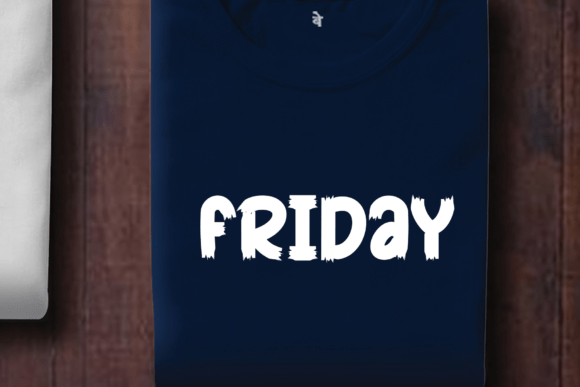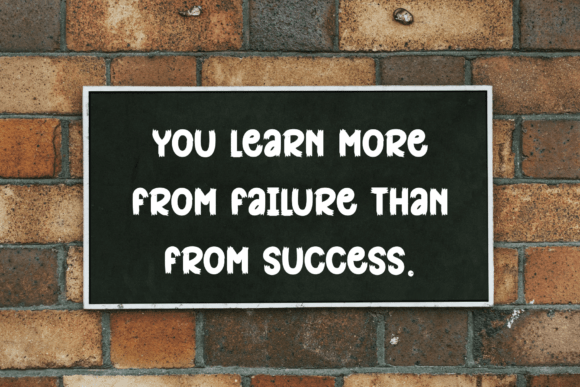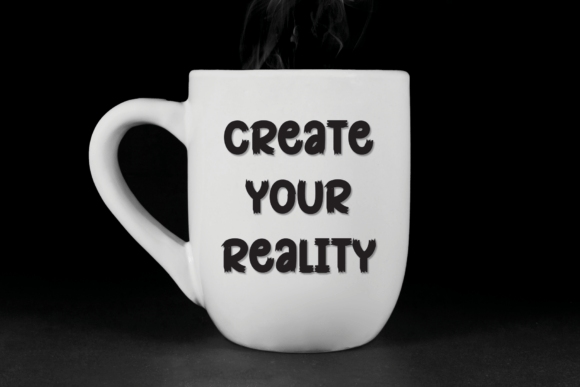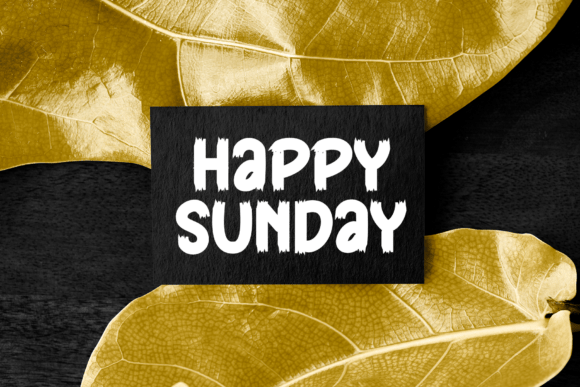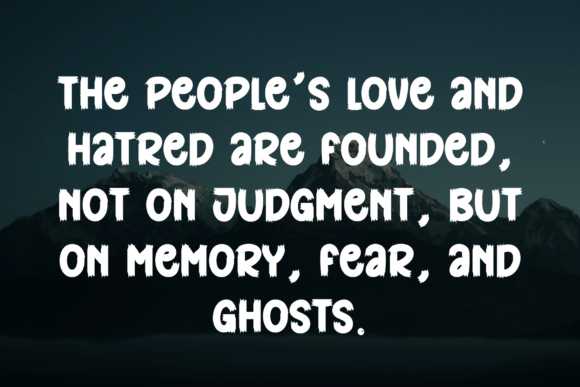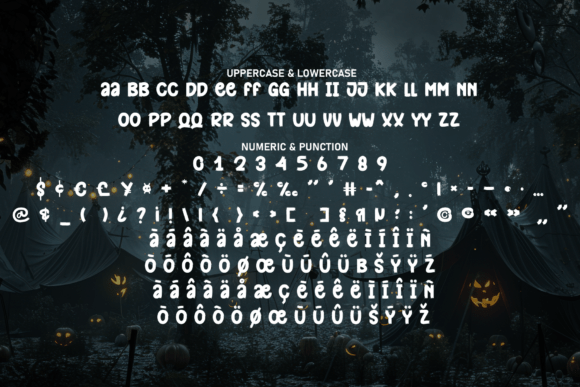
Introducing Creepy Festival Font: The Perfect Blend of Sweet and Friendly
Are you tired of using the same old fonts for your designs? Look no further! We’re excited to introduce Creepy Festival Font, a charming and cozy handwritten display font that’s sure to bring a playful dash of personality to any design. With its unique blend of sweet and friendly features, this font is perfect for designers and crafters looking to add a touch of whimsy to their work.
A Font that’s Full of Character
Creepy Festival Font is a handwritten display font that’s infused with a delightful sense of fun. Its endearing form is perfect for personalizing wedding invitations, cards, and other designs that require a touch of personality. The font’s unique style is sure to make your designs stand out from the crowd, and its playful vibe is guaranteed to bring a smile to the face of anyone who sees it.
Wedding invitations and cards are a great way to use Creepy Festival Font. The font’s sweet and friendly features make it perfect for adding a personal touch to these special occasions. Imagine sending out wedding invitations that are not only beautiful but also reflect the personalities of the happy couple. With Creepy Festival Font, you can create unique and eye-catching designs that will leave a lasting impression on your guests.
Bringing Personality to Your Designs
Any design can be transformed with Creepy Festival Font. Whether you’re working on a branding project, a social media graphic, or a website, this font is sure to add a playful dash of personality. Its unique style is perfect for designers who want to create designs that are not only visually appealing but also reflect their personality. With Creepy Festival Font, you can add a touch of whimsy to your designs and make them stand out from the crowd.
Key Features of Creepy Festival Font
- Handwritten display font: Creepy Festival Font is a handwritten display font that’s perfect for adding a personal touch to your designs.
- Sweet and friendly features: The font’s sweet and friendly features make it perfect for wedding invitations, cards, and other designs that require a touch of personality.
- Unique style: Creepy Festival Font has a unique style that’s sure to make your designs stand out from the crowd.
- Playful vibe: The font’s playful vibe is guaranteed to bring a smile to the face of anyone who sees it.
Tips for Using Creepy Festival Font
Here are a few tips for using Creepy Festival Font:
- Use it for headings: Creepy Festival Font is perfect for headings and titles. Use it to add a touch of personality to your designs.
- Experiment with colors: The font looks great in a variety of colors. Experiment with different colors to find the one that works best for your design.
- Pair it with other fonts: Creepy Festival Font can be paired with other fonts to create a unique and eye-catching design.
Creepy Festival Font is a charming and cozy handwritten display font that’s perfect for designers and crafters looking to add a touch of personality to their work. With its unique blend of sweet and friendly features, this font is sure to bring a playful dash of personality to any design. Whether you’re working on a wedding invitation, a card, or a branding project, Creepy Festival Font is the perfect choice. So why wait? Download Creepy Festival Font today and start creating unique and eye-catching designs that reflect your personality.